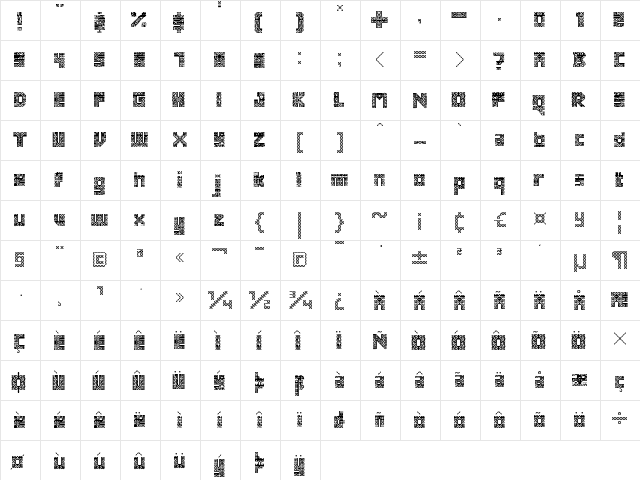
Antique Paleoindonesia Regular
| Designer | Adien Gunarta |
Design Context for Antique Paleoindonesia Typeface
Antique Paleoindonesia wears its vintage influences proudly, with letterforms that recall mid-century signage, classic packaging, and nostalgia-driven design.
Ideal for diner signage, record shop branding, 70s/80s-themed projects, and heritage product labels.
Font Pairing: Combine Antique Paleoindonesia with a simple slab or neutral sans — period-accurate companions reinforce the vintage feel without competing for attention.
Pro Tip: Lean into Antique Paleoindonesia's period character by pairing it with aged paper textures, muted colour palettes, and vintage illustration styles.